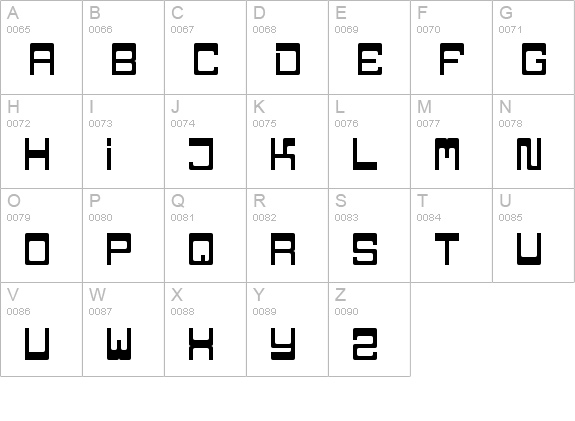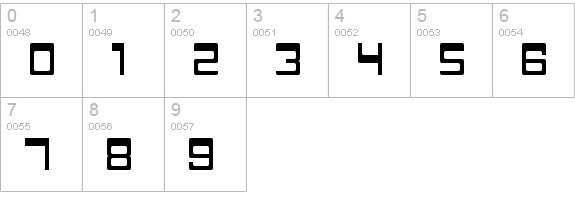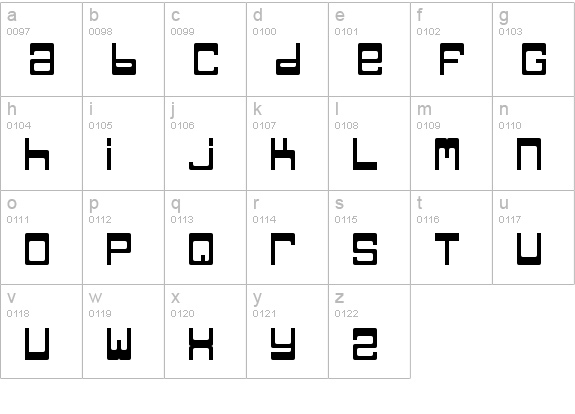
Introducing TPF Jaib Font, a stunning typeface that effortlessly combines elegance with a touch of modernity. This versatile font is perfect for a wide range of design projects, from branding and logos to invitations and headings. TPF Jaib Font features clean lines and a balanced weight distribution, making it both highly readable and visually appealing. Its unique letterforms exude a sense of sophistication and style, while maintaining a legible and approachable quality. This font is available in a variety of weights, allowing you to create impactful designs with ease. Whether you're aiming for a bold statement or a more subtle and refined look, TPF Jaib Font has got you covered. And the best part? TPF Jaib Font is absolutely free! That's right, this amazing font is freely available to download at FontsMarket.com. So you can enhance your design projects without any budget constraints. Don't miss out on this opportunity to elevate your designs with TPF Jaib Font. Download it now and experience the freedom of creativity that comes with having this exceptional typeface at your fingertips.